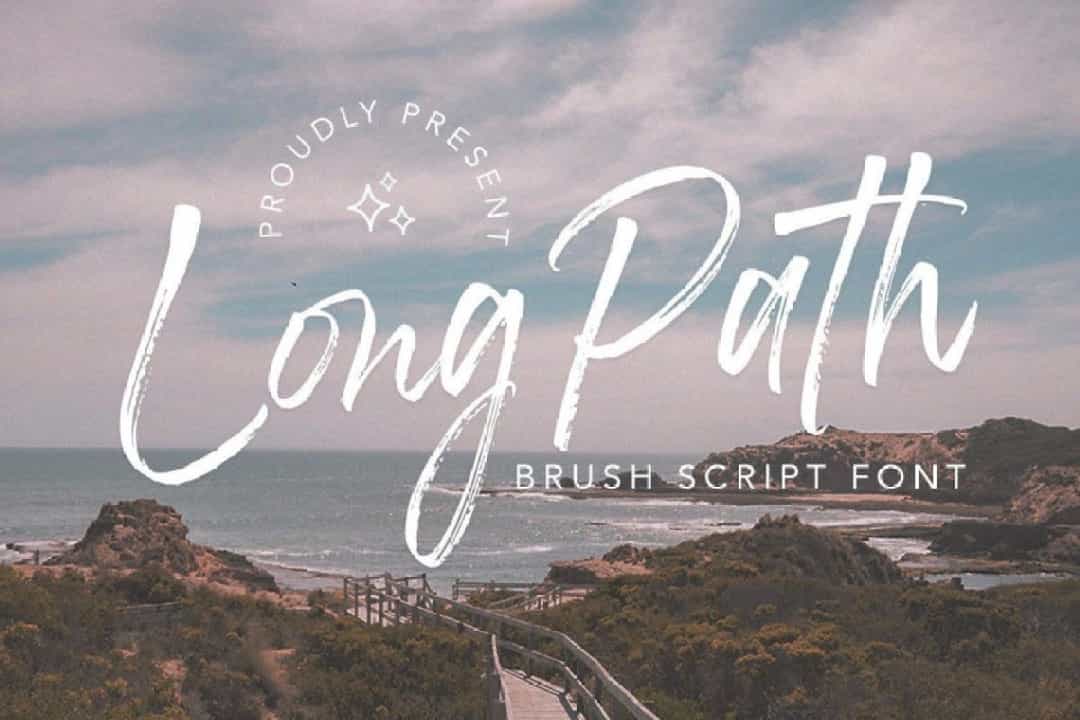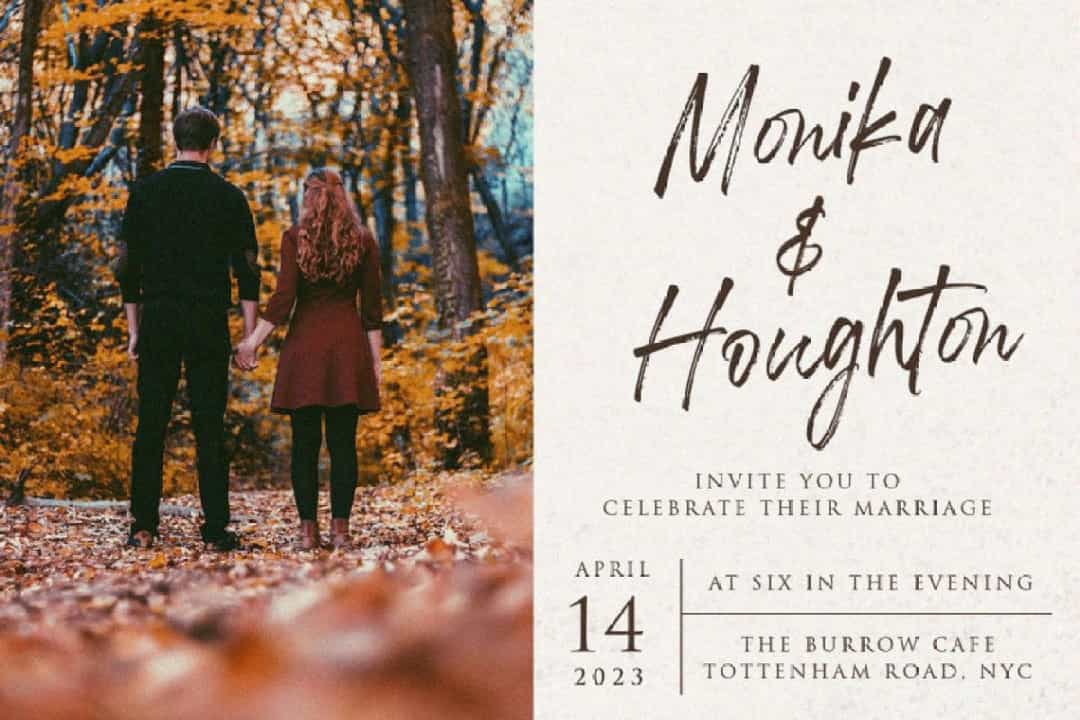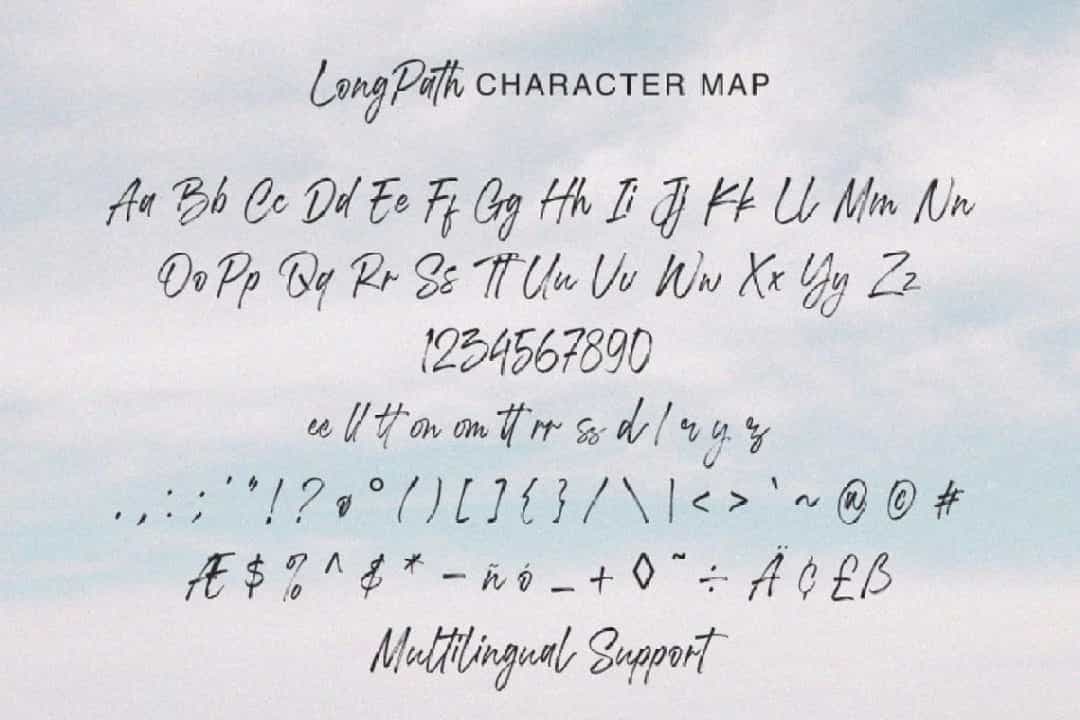
Discover Long Path Font, part of the Brush collection—a versatile and unique font perfect for adding a personal touch to your projects. Download it for free and enjoy crafting designs with style, from invitations to social media posts. This font is available exclusively for personal use, giving you the freedom to create without limits. Unlock your creativity with Long Path Font today!
Long Path is an amazing brush script font with real and natural aesthetics that is ideal for creating logos, branding and design projects of all types – logos, branding, Design as well as lettering logotypes for clothing Posters, Magazine packaging bags for shopping, poster T-shirts photography special events as well as other design projects.